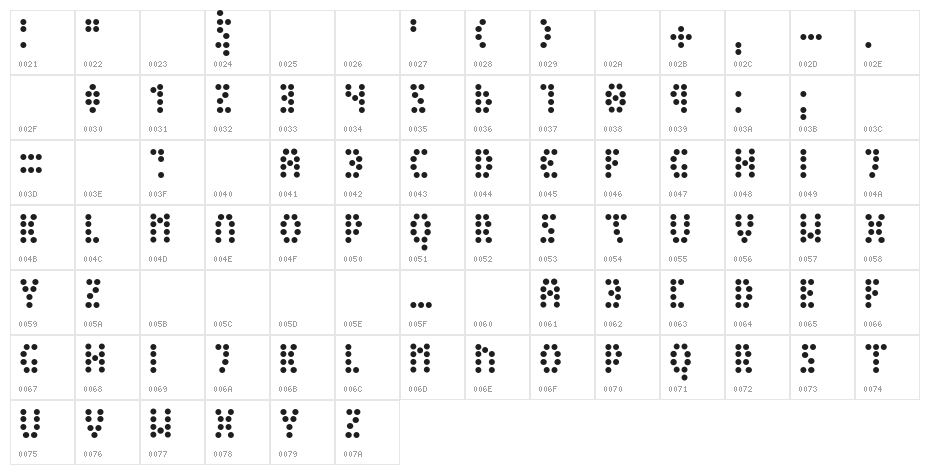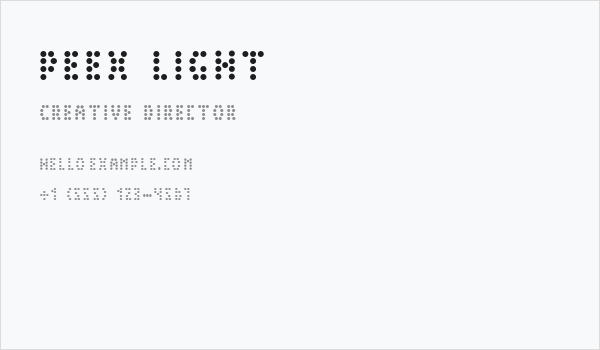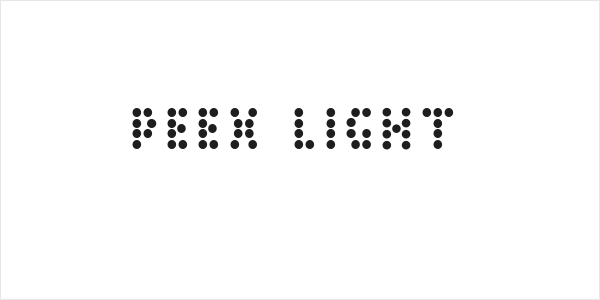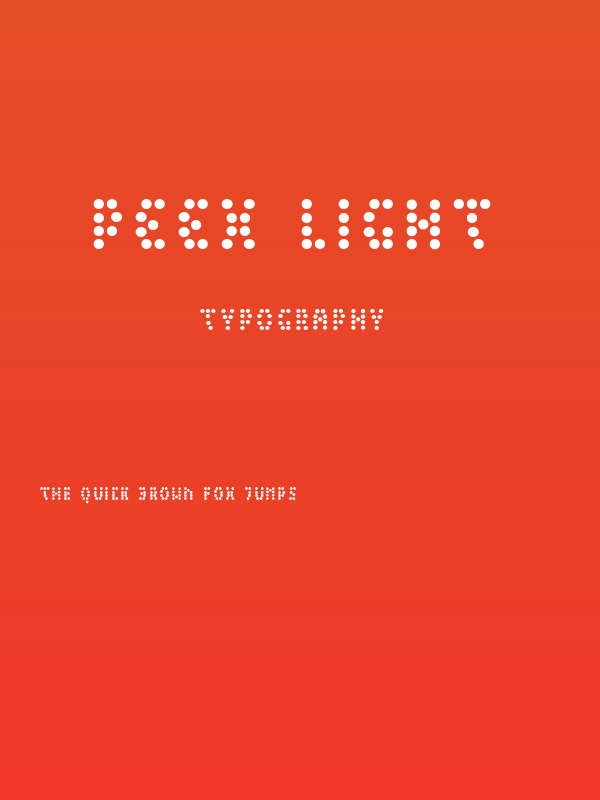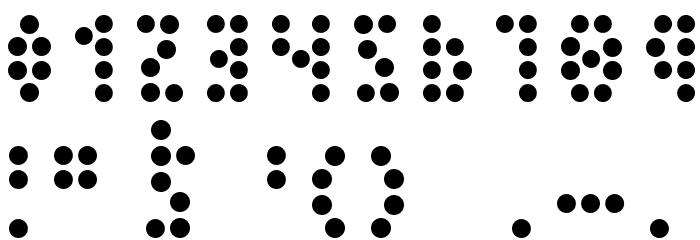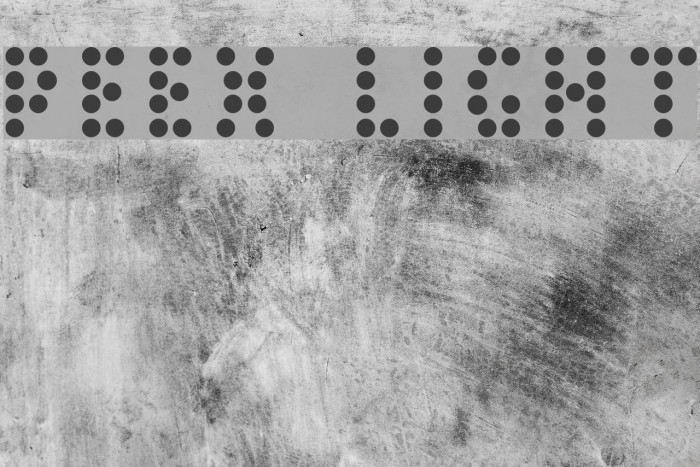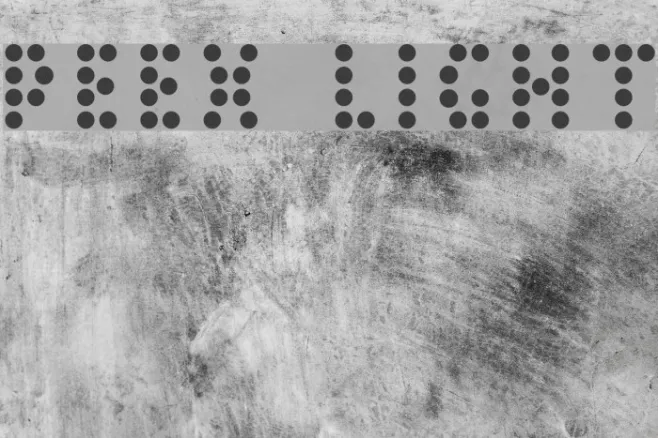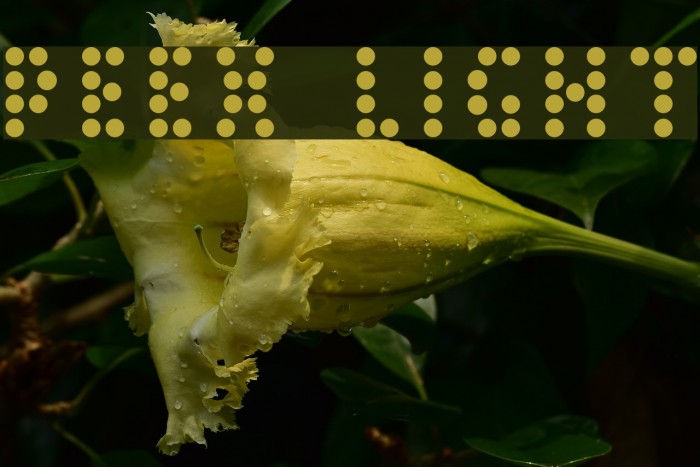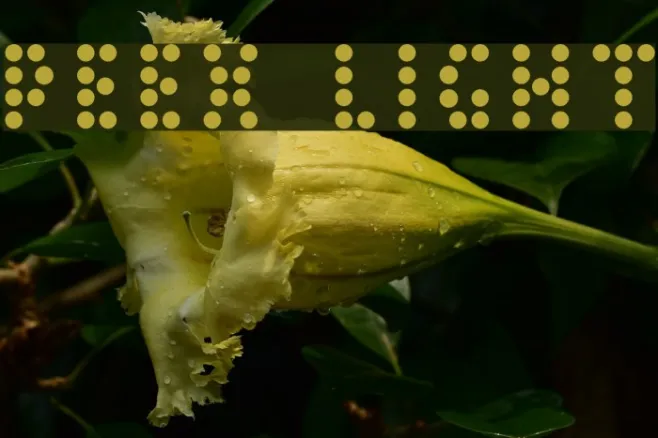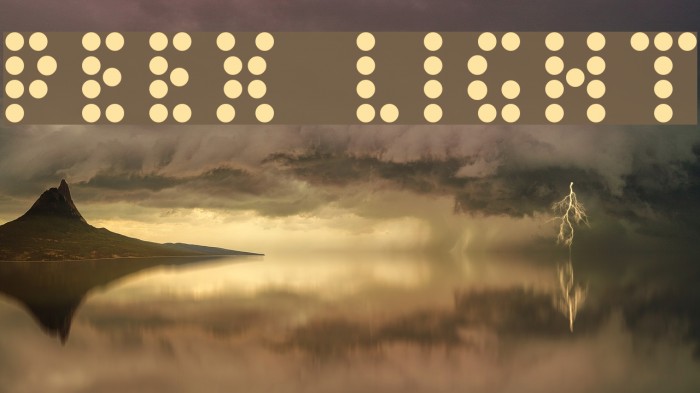
Peex Light Font
Peex Light Description
This font is a unique and creative design composed entirely of dots arranged to form each character. The circular dots are evenly spaced, creating a consistent and cohesive look across all letters and numbers. The uppercase and lowercase letters maintain a uniform height and width, contributing to a balanced and harmonious appearance. The numbers and special characters follow the same dotted pattern, ensuring a seamless integration with the alphabet. This font's playful and modern style makes it ideal for projects that require a distinctive and eye-catching typeface.
| Use Case | Logos, Posters, Creative projects |
| Proposed Projects | Ideal for digital art projects, children's books, playful branding, and creative posters. |